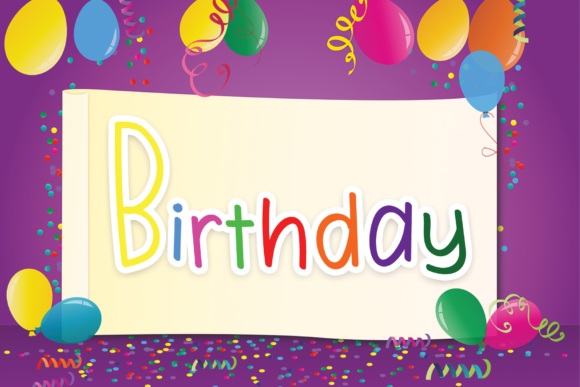
The Birth of a Perfect Font: Celebrating with Birthday Font
I’ll never forget the time I was working on a children’s party invitation design, and I just couldn’t find the right font. The project was for a client’s kid’s birthday, and I wanted something that would capture the playful, carefree spirit of childhood. I scoured font websites, tried out dozens of options, but nothing seemed quite right. That was until I stumbled upon the Birthday Font. It was love at first sight! 🎉
A Cool, Simple, and Natural Script Font
The Birthday Font is a cool, simple, and natural script font that has become a staple in my design toolkit. Its effortless, handwritten charm makes it perfect for a variety of casual designs, especially those with a children’s theme. When paired with bright colors, this font truly shines. ✨
• ✨ Effortless charm: The Birthday Font has a natural, handwritten feel that’s perfect for creating playful designs.
• ✅ Highly versatile: This font can be used in a wide range of designs, from party invitations to children’s books.
• 🎉 Pairs well with bright colors: The font’s simplicity makes it an excellent match for bold, vibrant colors.
While the Birthday Font is an excellent choice for many designs, there are a few things to keep in mind. 🤔
• ⚠️ Limited formal use: Due to its casual, script nature, this font may not be suitable for formal or professional designs.
• ⚠️ Some letters may require adjustment: As with any script font, some letters may need to be adjusted to ensure proper spacing and alignment.
The Designer Inspiration Behind Birthday Font
The Birthday Font was designed with the intention of capturing the simplicity and joy of childhood celebrations. Its creator aimed to create a font that would be both fun and accessible, perfect for designs that require a personal touch. While the true story behind the font’s creation may be unknown, its impact on designers and crafters is undeniable.
Q: What type of designs is the Birthday Font best suited for?
A: The Birthday Font is perfect for children’s themed designs, party invitations, and other casual projects that require a playful touch.
Q: Is the Birthday Font available in different styles or weights?
A: The Birthday Font may be available in different styles or weights, but this will depend on the specific version of the font you’re using.